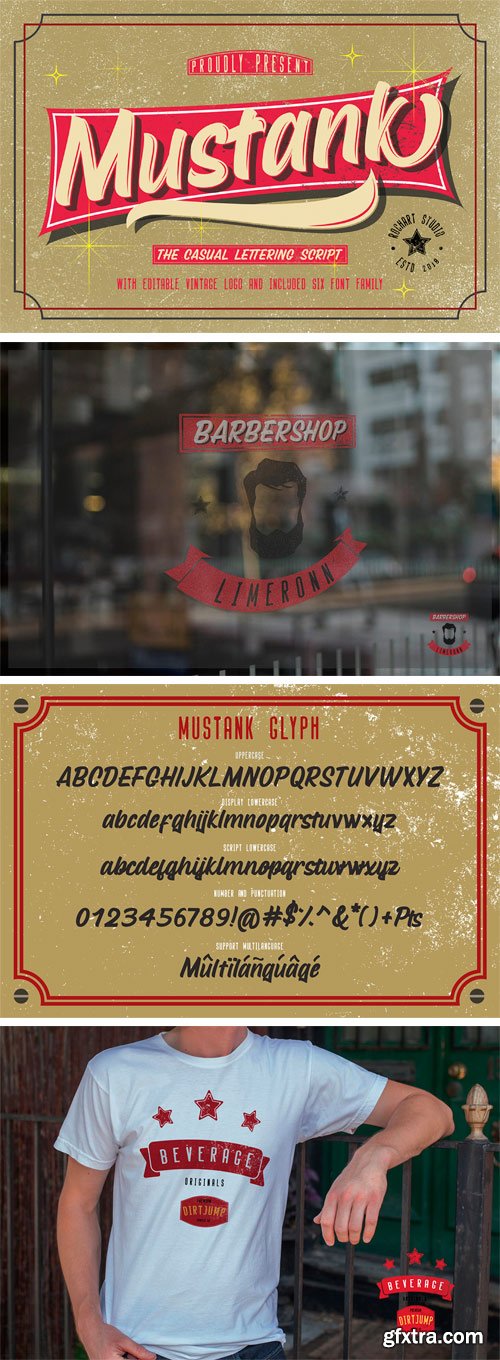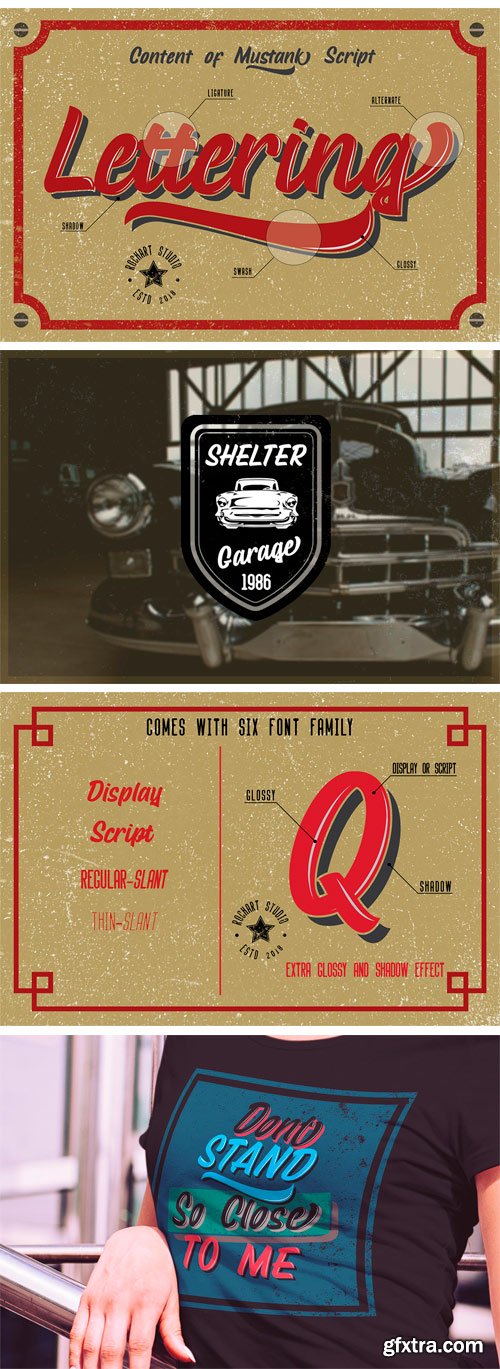
Mustank Casual lettering script is a font collection that contains three font family there are script, display and sans. The collection of fonts that are designed to complement each other in their use. Mustank is perfect for logo design, t-shirts, flyers, apparel, packaging, advertising etc. This typeface contain of Uppercase, Lowercase, Alternate, Swash, Number, Symbol, Punctuation, Ligature etc. Also support multilingual and already PUA encoded.